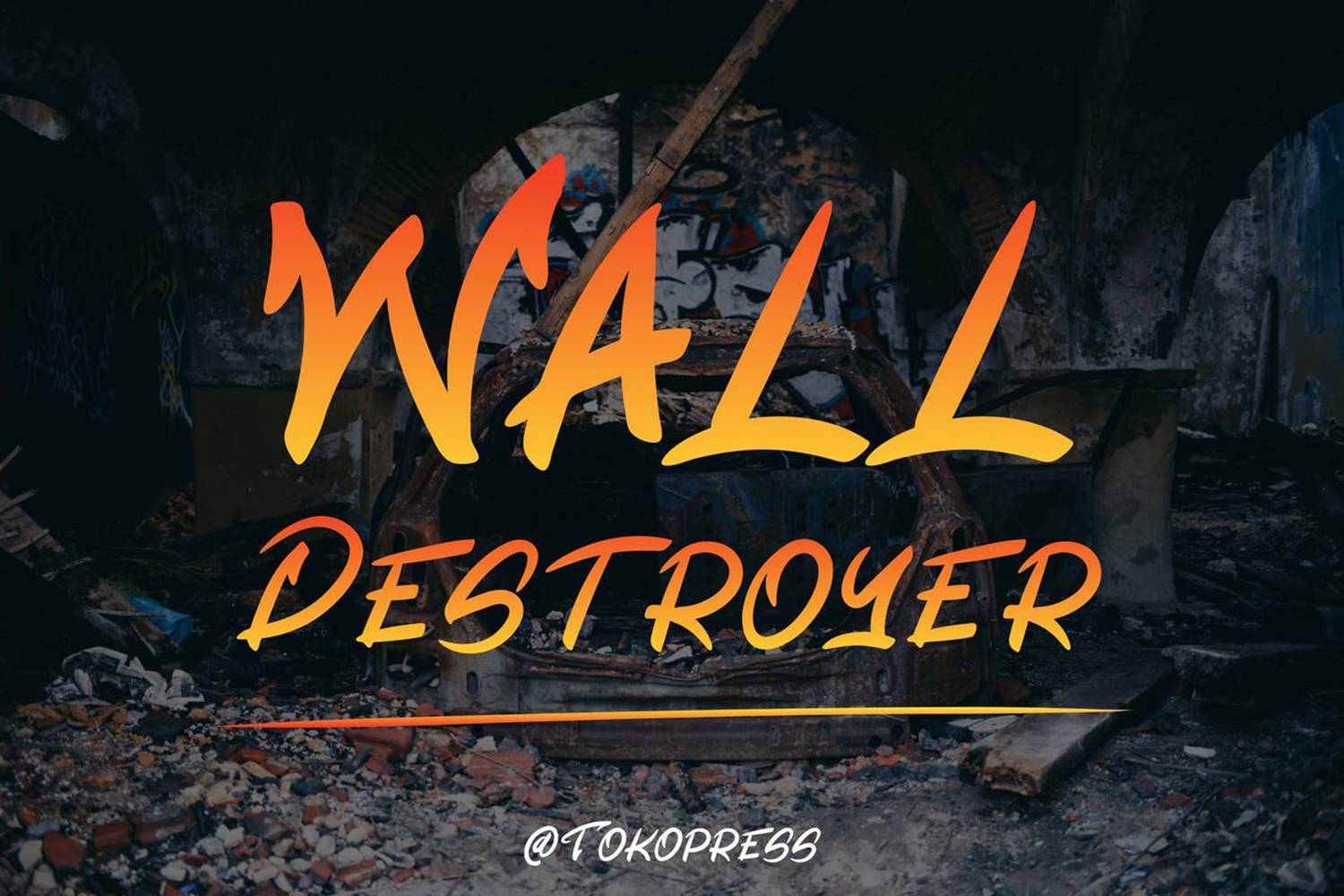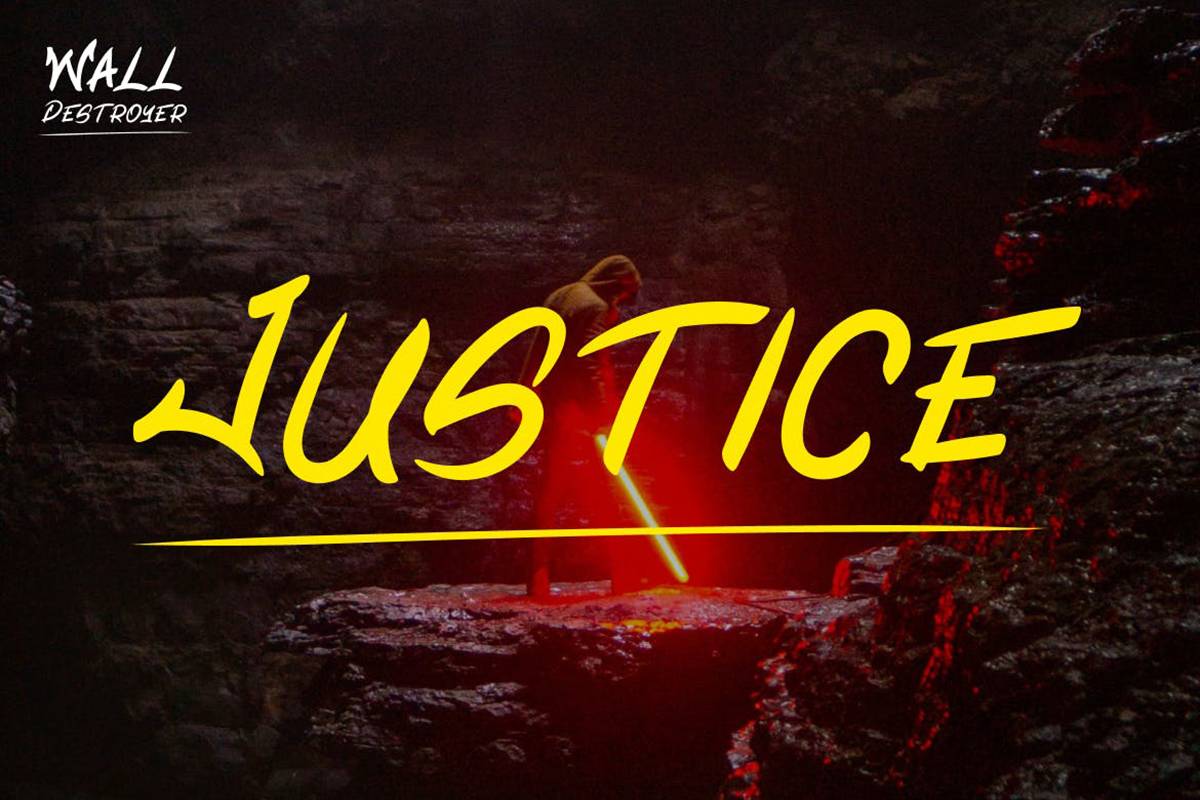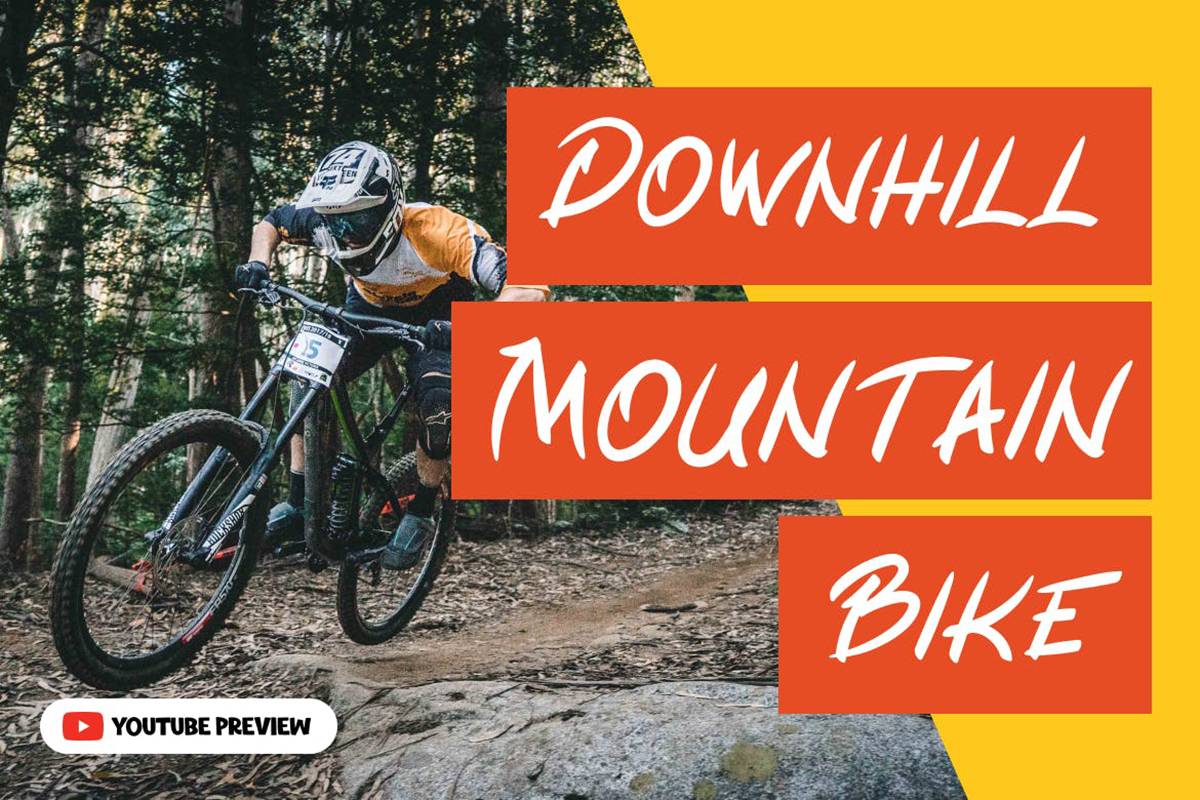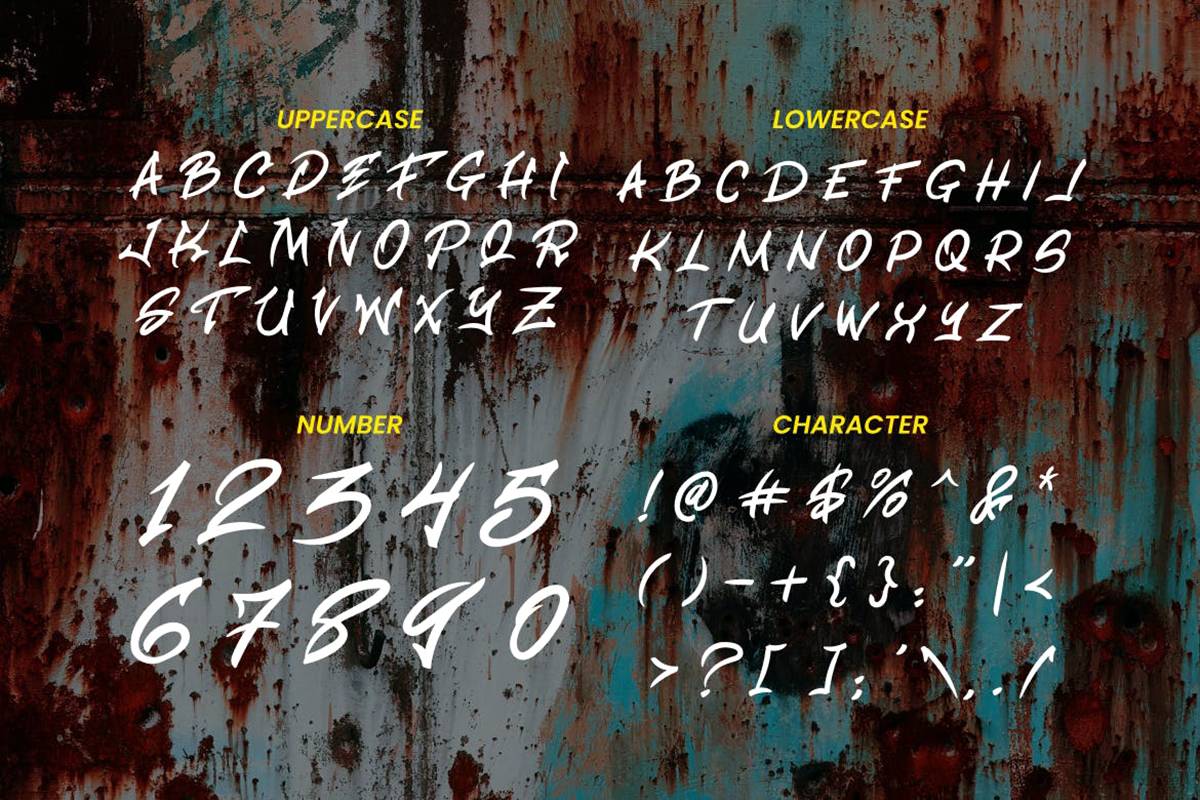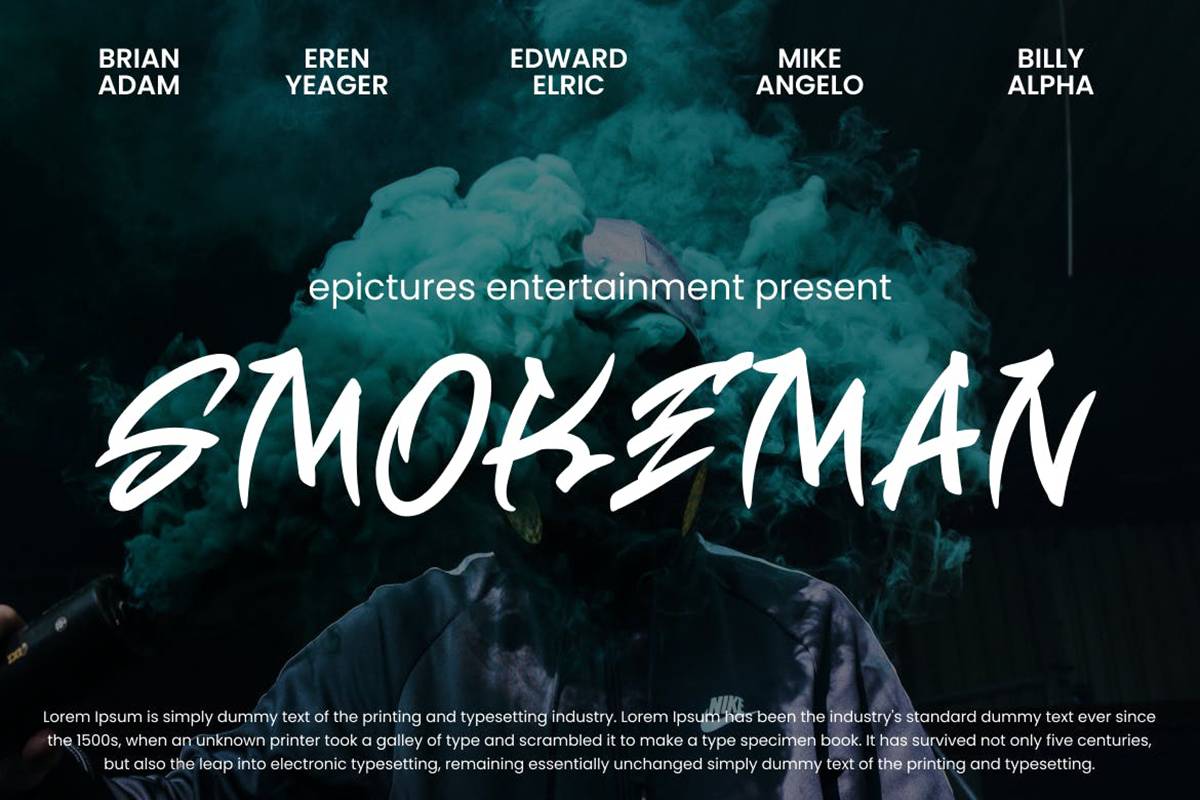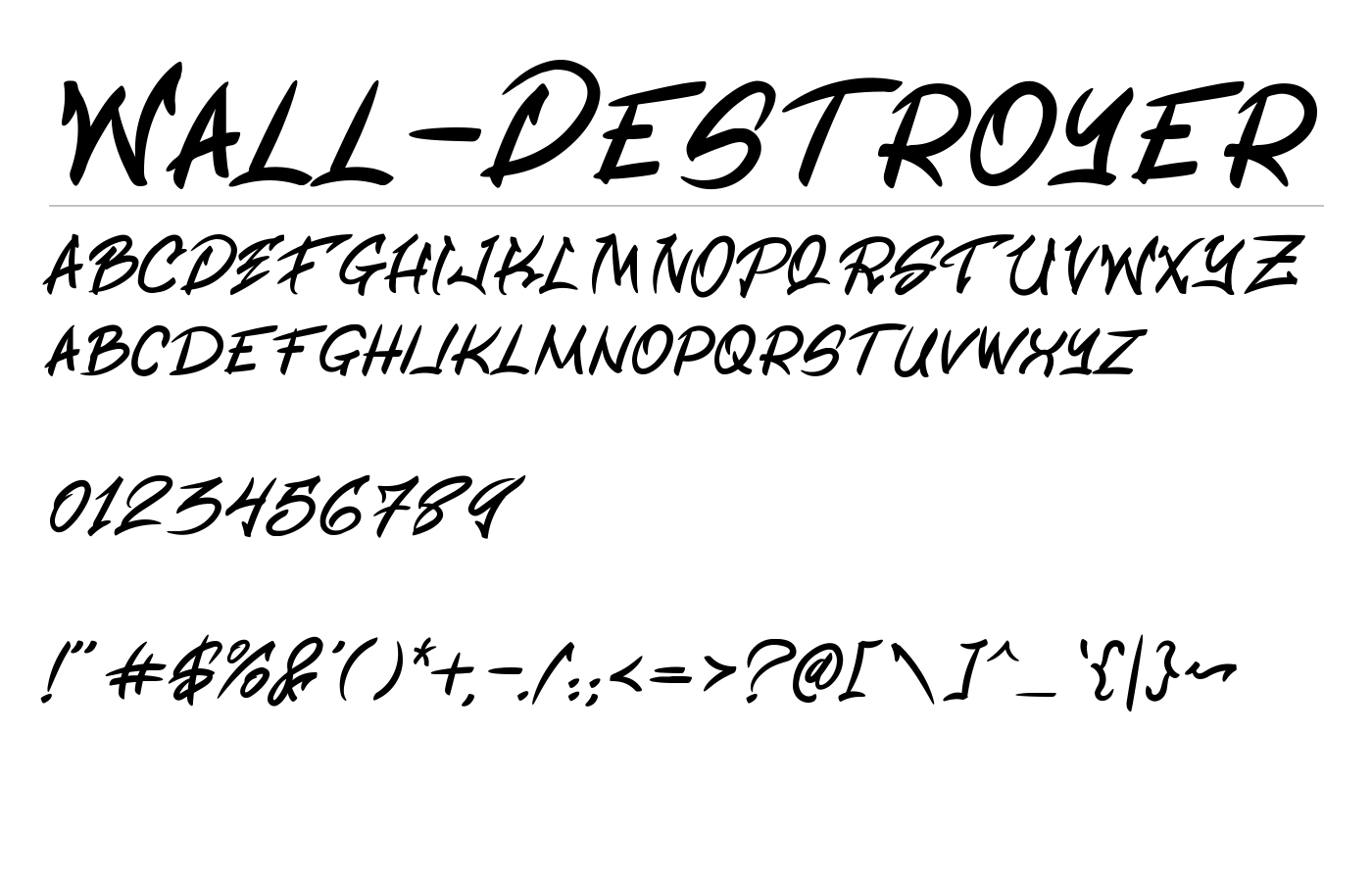
Wall Destroyer is a dynamic, bold script font with a hand-painted feel that combines sharp, energetic strokes with a playful, rebellious attitude. Its strong, slightly condensed letterforms and slightly irregular shapes convey a sense of action and intensity, making it perfect for brands or designs that want to evoke excitement and a modern edgy vibe. This font works especially well in headlines, posters, and branding that aims to capture attention with a youthful, daring personality.
Wall Destroyer Font
About Wall Destroyer Font
| Font family | Wall Destroyer Font |
| Designer | Tokopress Team |